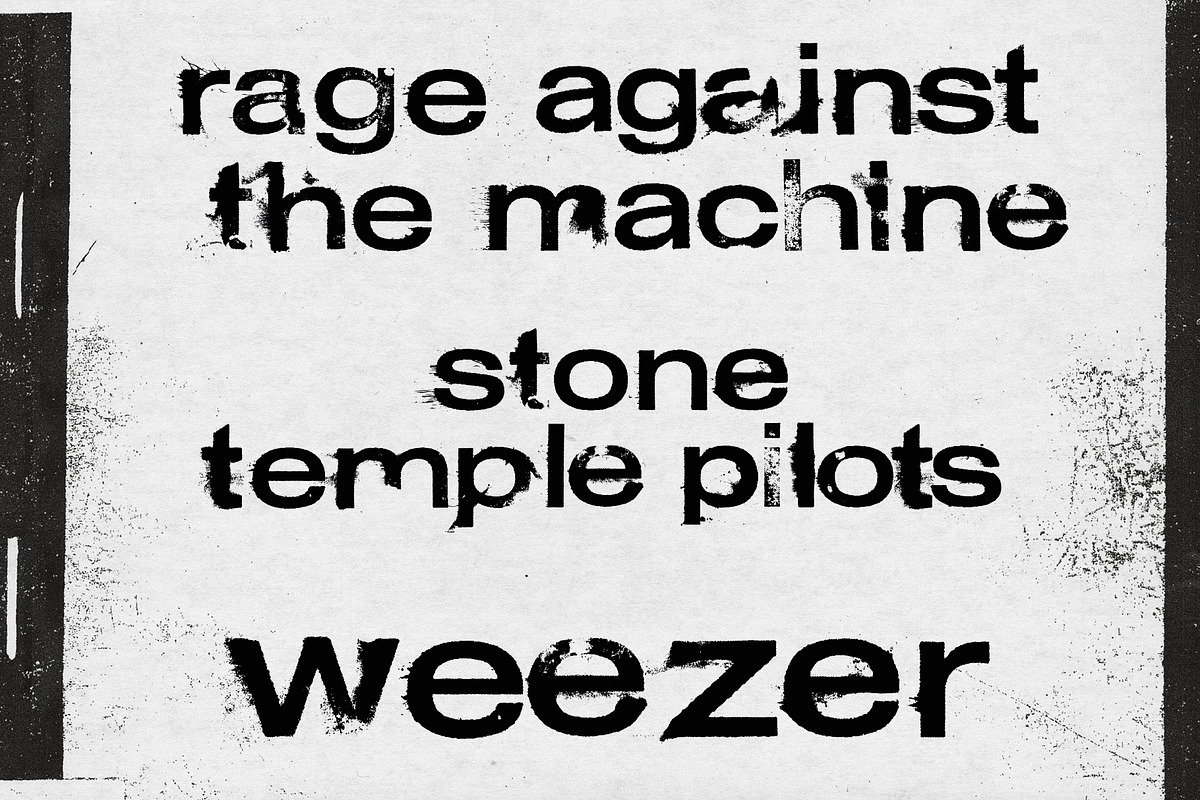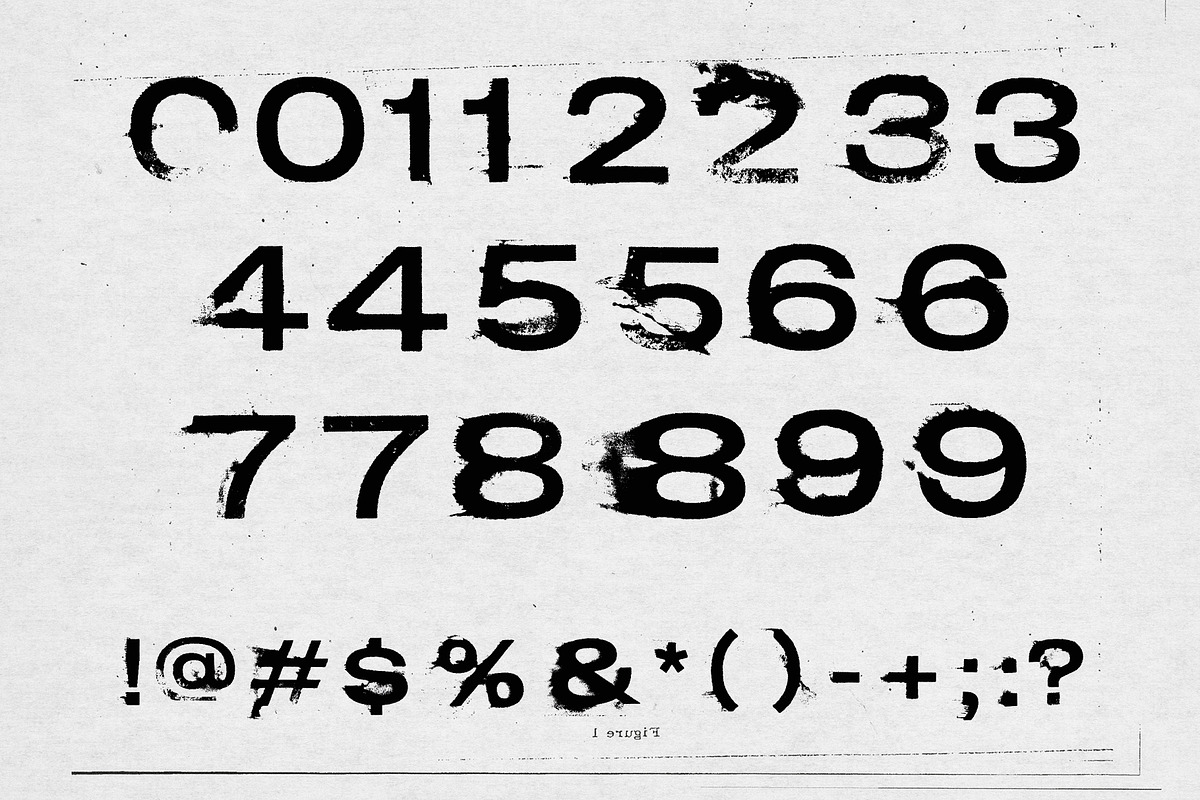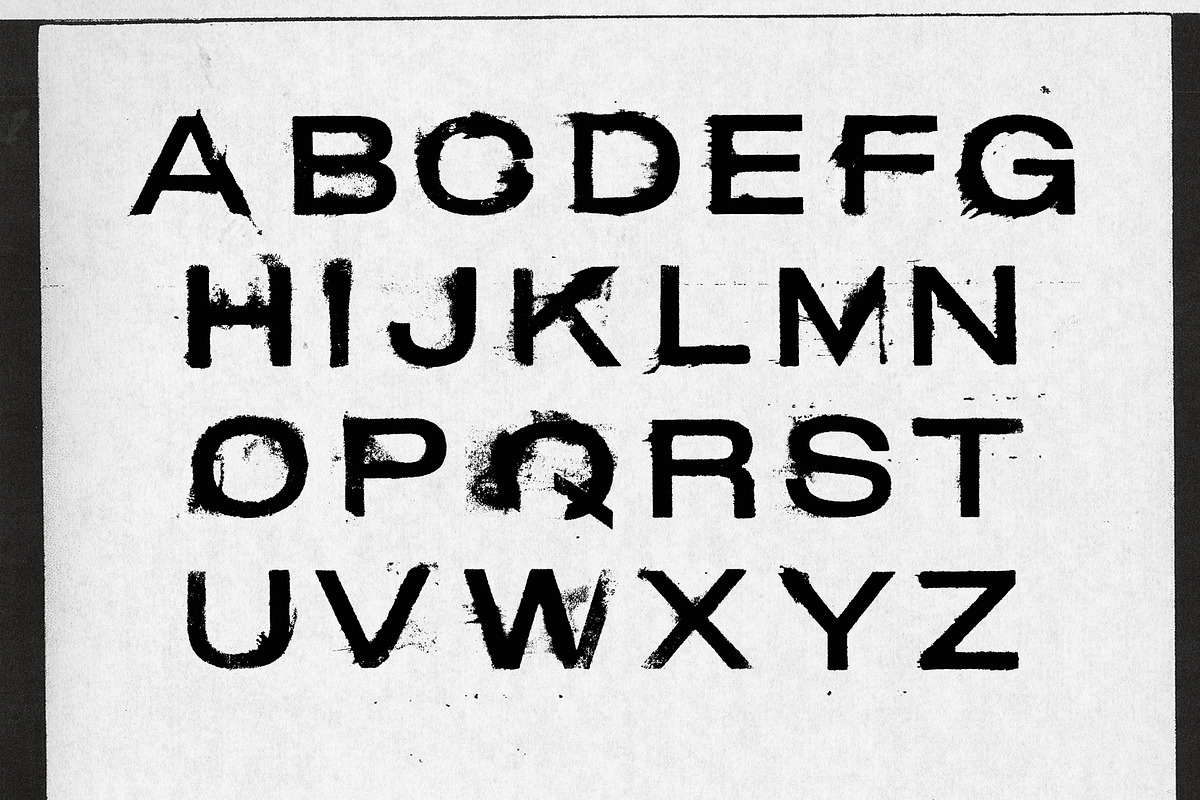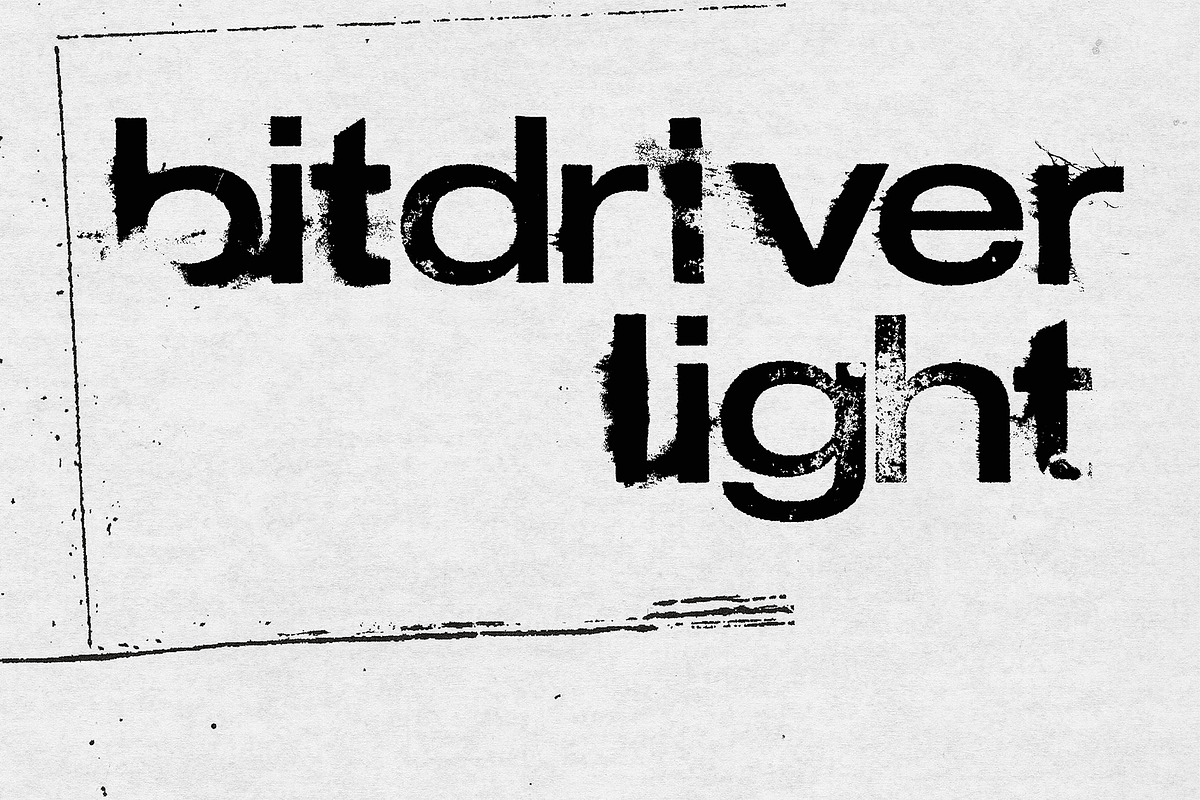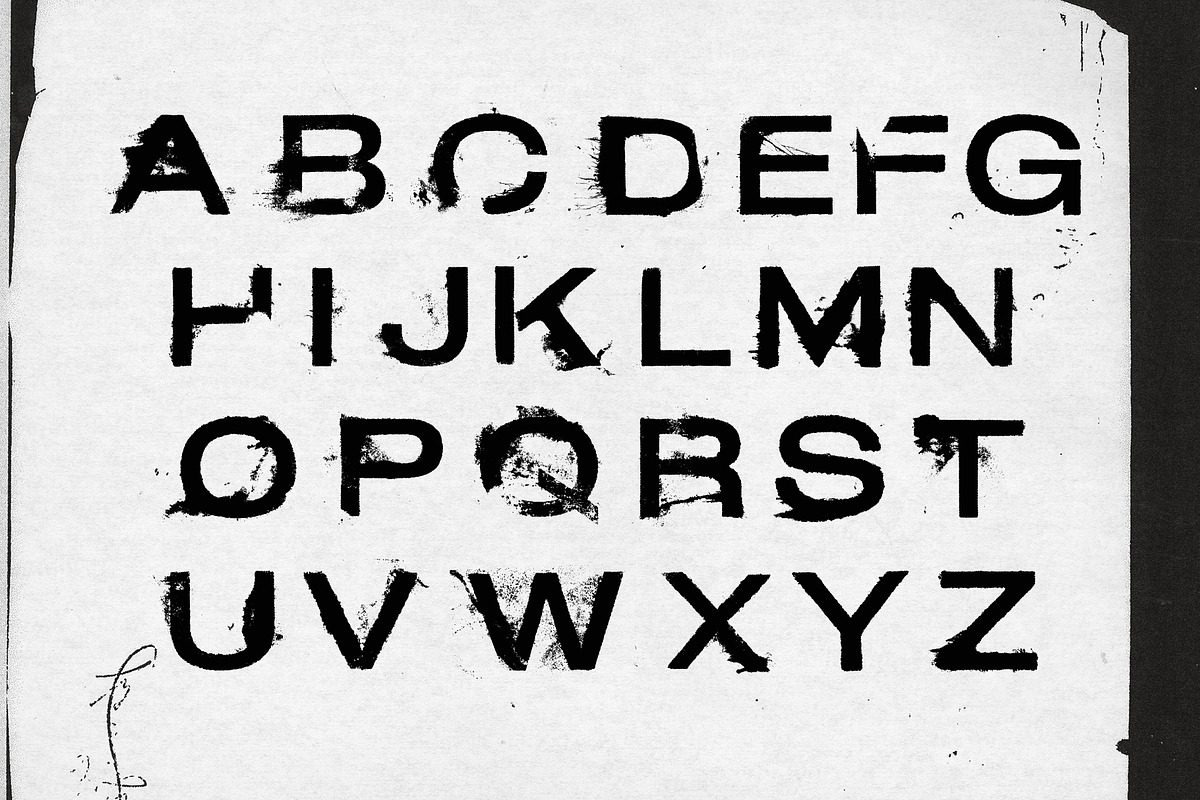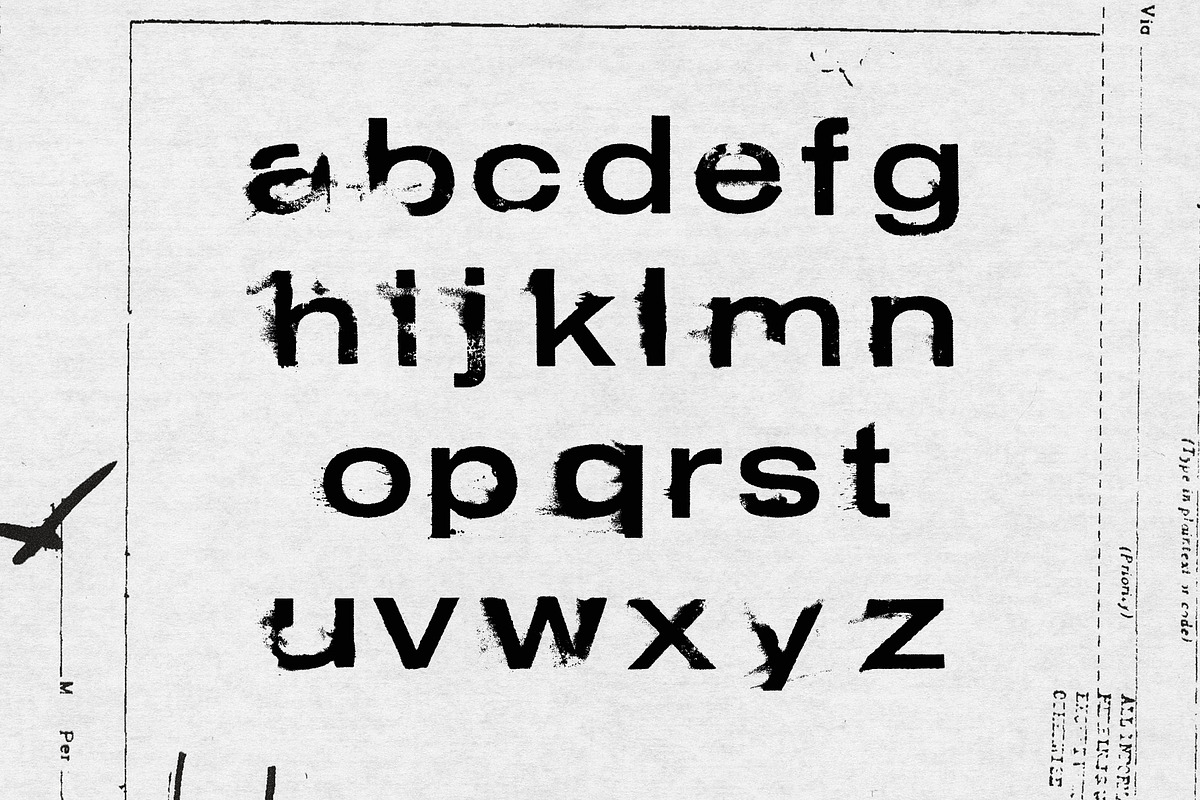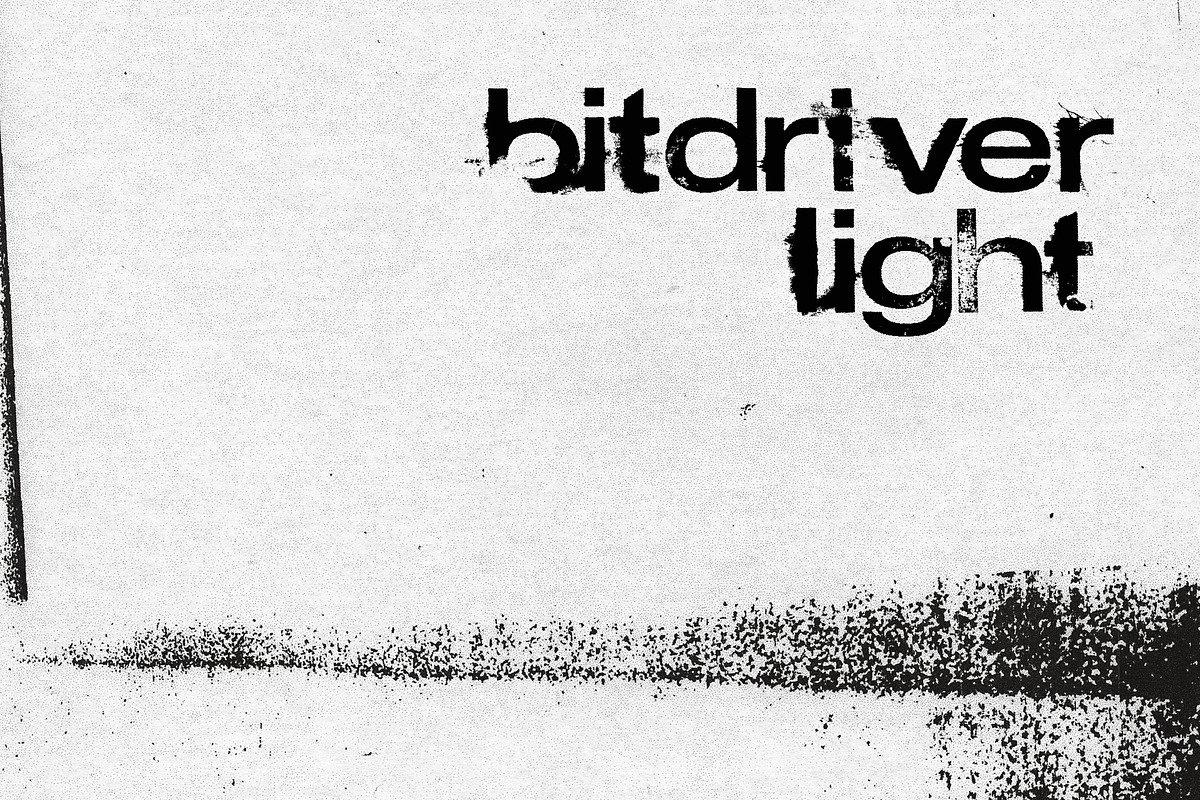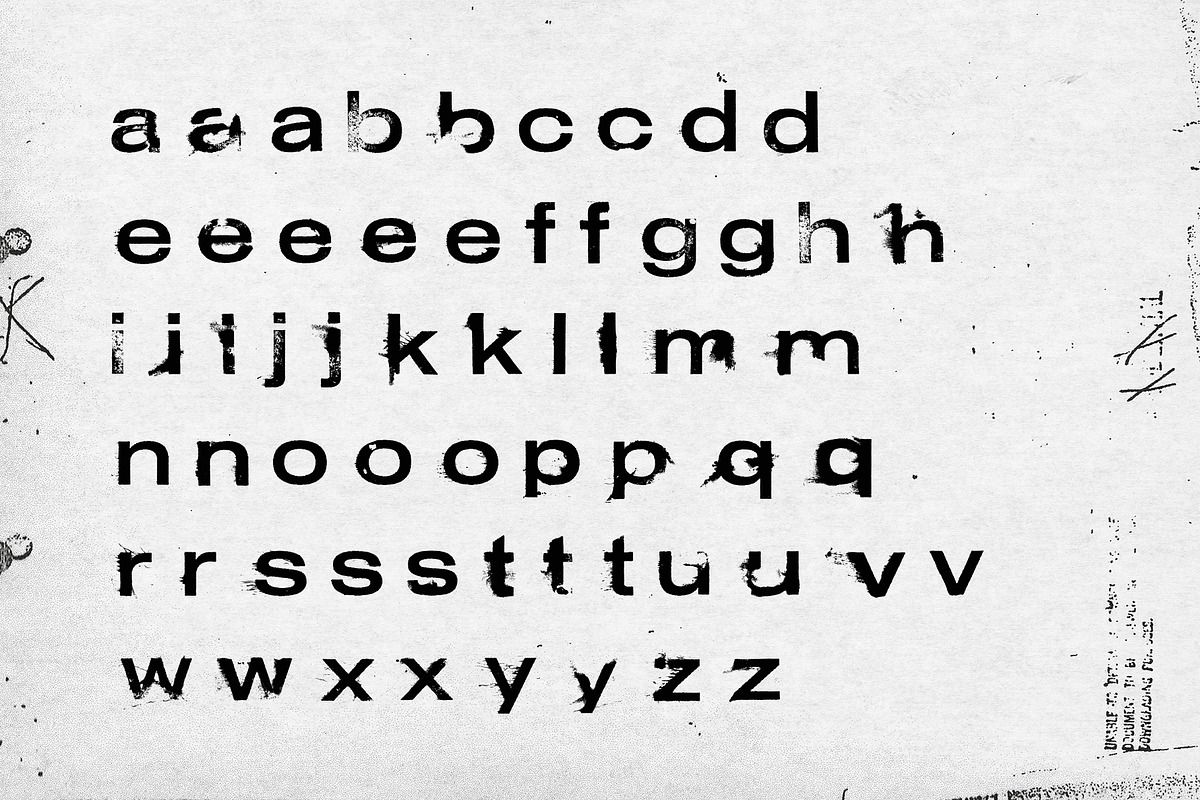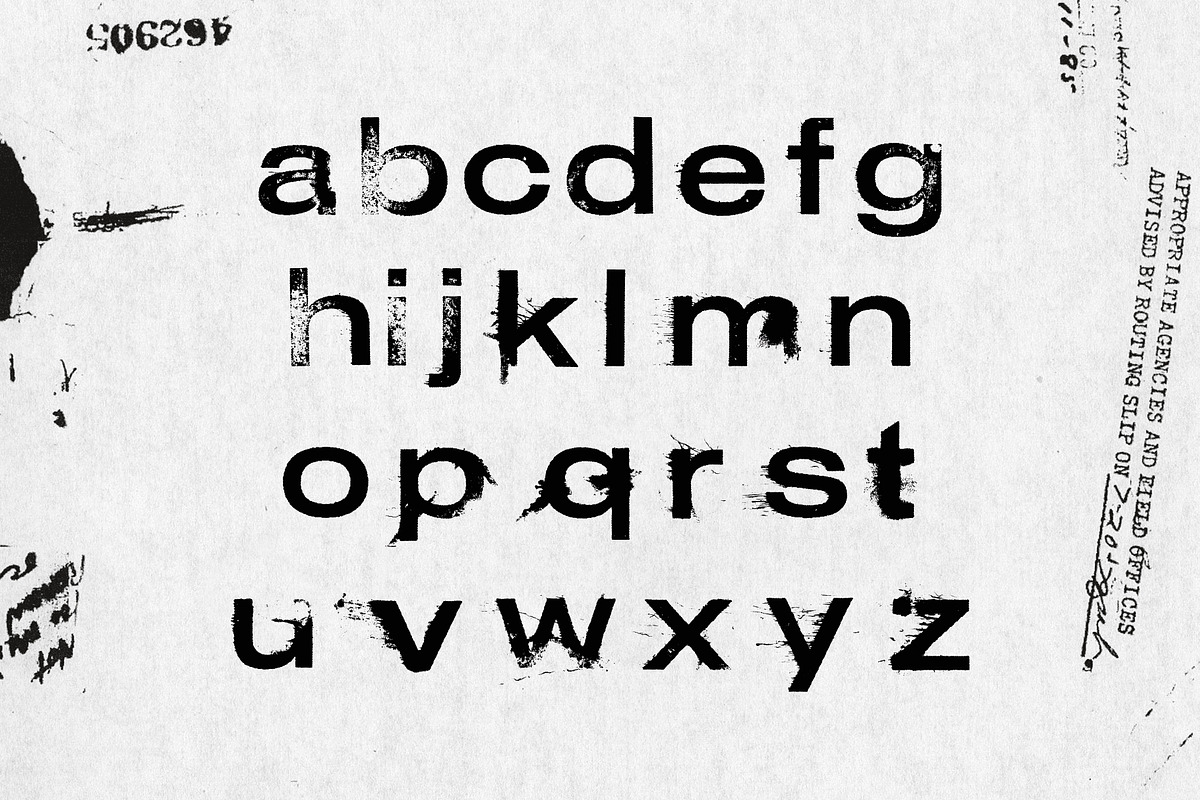
Bitdriver Light - OpenType SVG Font
OpenType-SVG bitmap font inspired by the 90s aesthetic of grunge and distressed type. Born out of a love for Raygun Magazine and the "Swiss Grit" style. Created by hand and raw in nature, you won't find a more realistic grunge font that gives you the perfect look for your next project that requires a punk rock vibe. Includes lots of alternate glyphs so double usage of letters will still retain custom look. NOTE: this is an SVG font created with bitmaps, not vectors. This retains the handmade style but can't be scaled to infinity like normal vector fonts. SVG's are limited to 1000px. I've personally printed it at 150pt with great reproduction, so definitely suitable for smaller print projects.